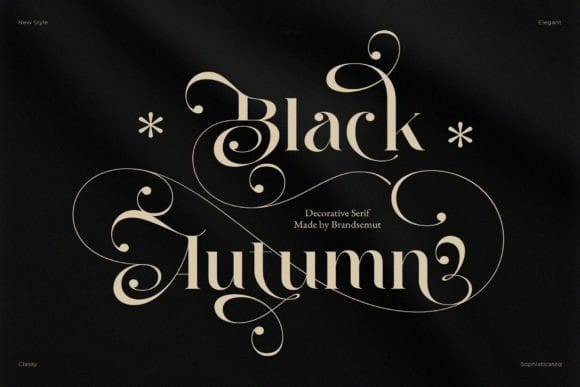
Black Autumn Font
Black Autumn Font is a refined and sophisticated serif font exuding timeless elegance. Its delicate serifs and balanced proportions lend a touch of class to any project, from editorial design to branding. With its versatility and charm, BlackAutumn is perfect for conveying sophistication and style in any context.